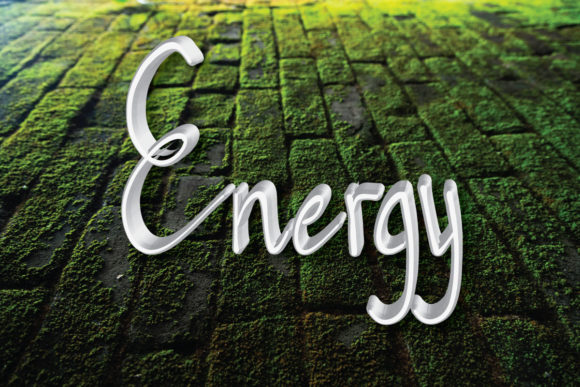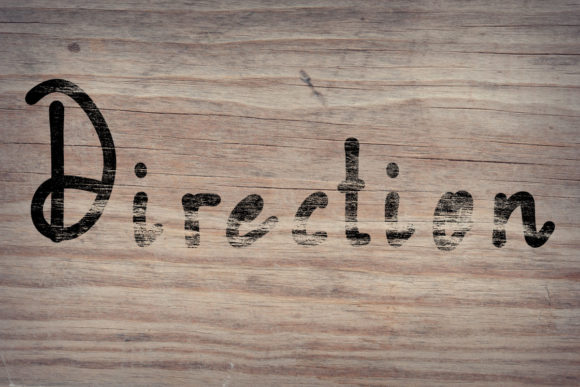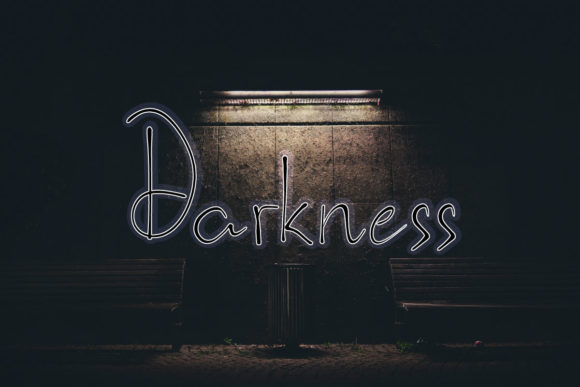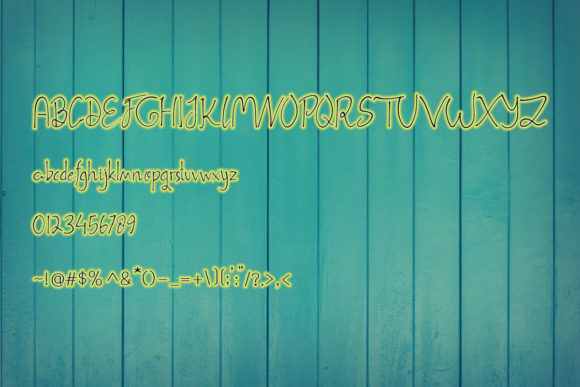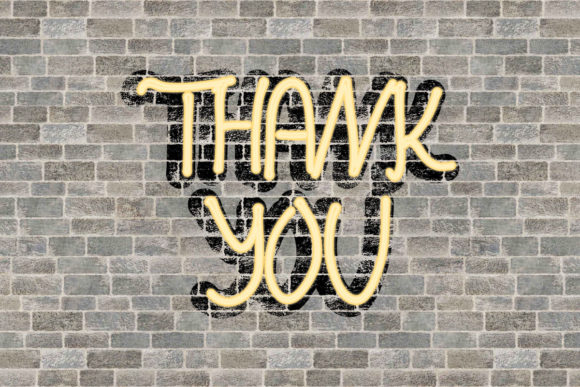
Energy Font
About Energy Font
Energy is a casual handwritten font. Add this beautiful font to each of your creative ideas and notice how it makes them stand out!